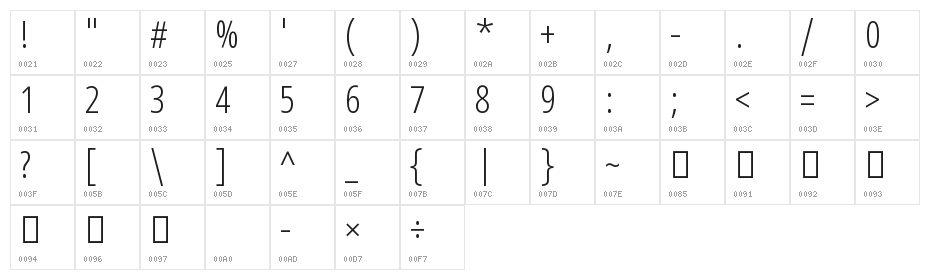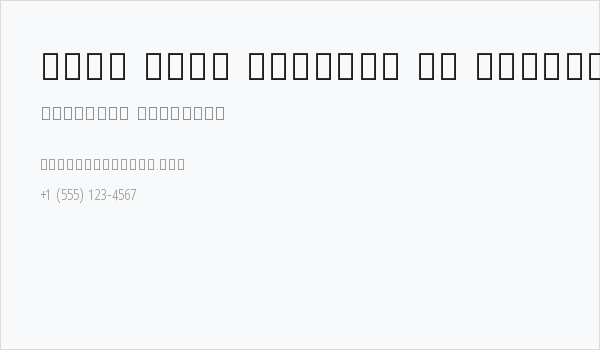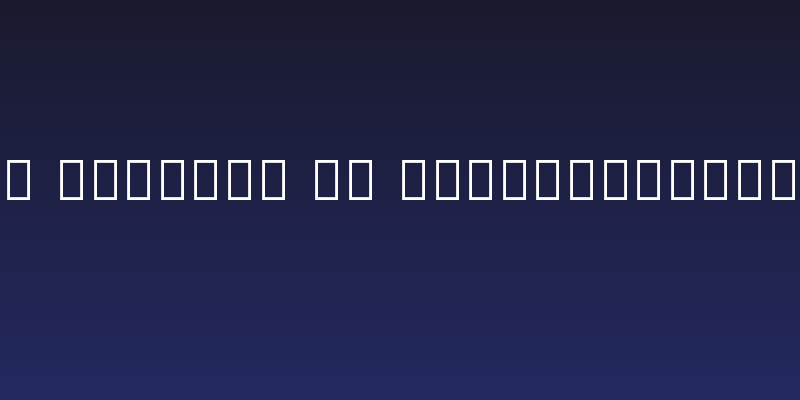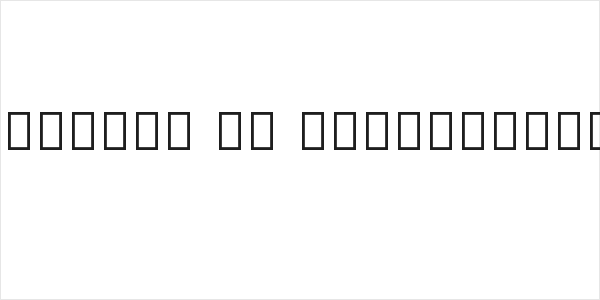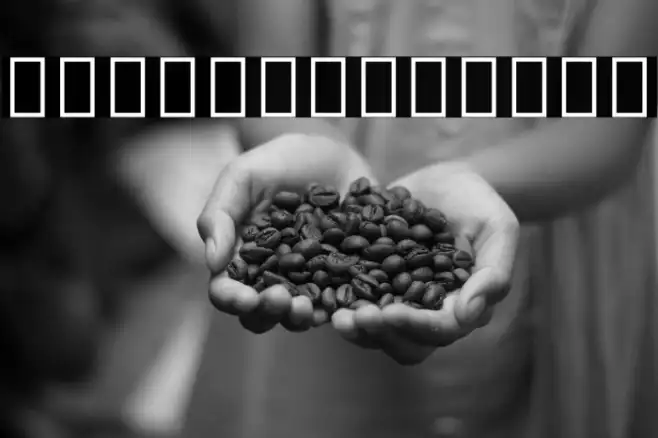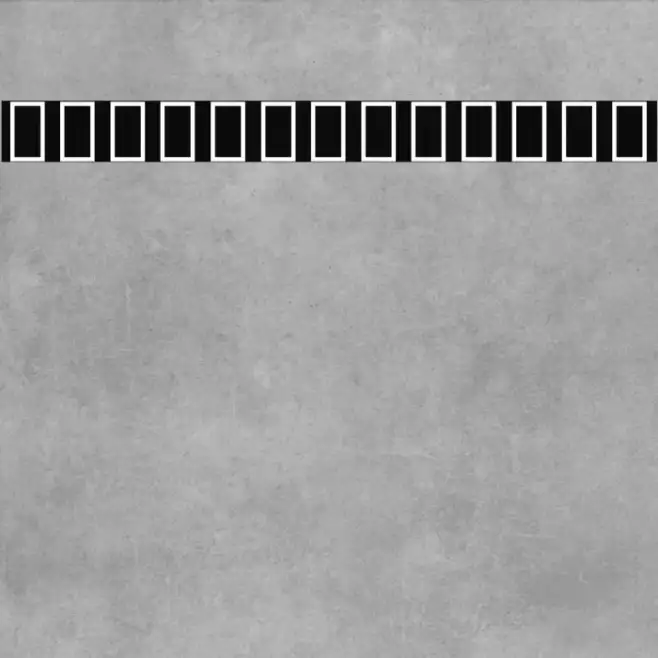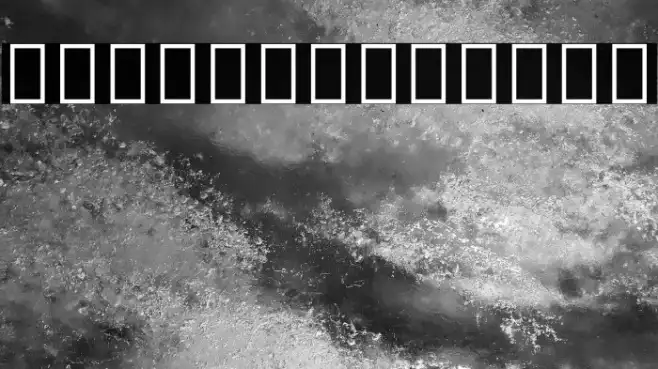
Noto Sans Sinhala UI ExtraCondensed Light Font
Noto Sans Sinhala UI ExtraCondensed Light Description
This font is characterized by its clean and minimalistic design, featuring a highly condensed structure that makes it ideal for space-saving applications. The light weight of the strokes gives it an airy and modern feel, while maintaining clarity and readability. The numerals and special characters are designed with precision, ensuring consistency across different sizes. Its simplicity and elegance make it suitable for a variety of digital interfaces, where legibility and style are paramount.